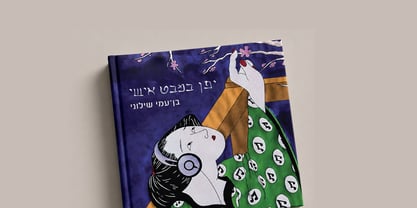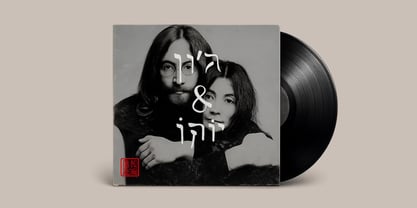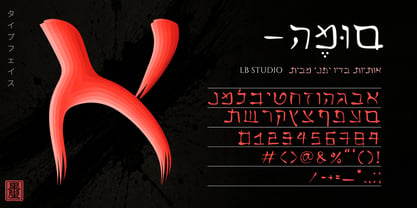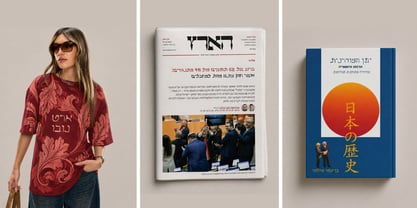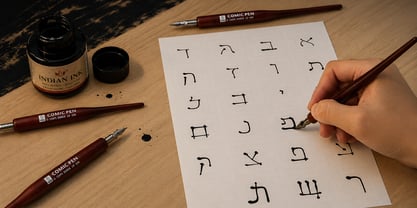
Sume
Soma is a Hebrew typeface inspired by Japanese calligraphy and kanji, developed through a hands-on, expressive process using ink and a calligraphy pen.
The project grew out of two years of studying Japanese at a Japanese Language Center, where I developed a deep appreciation for the rhythm, balance, and emotional quality of traditional kanji writing. In Japanese, sumi (墨) refers to traditional black ink, and sumi-e (墨絵) describes the art of ink painting.
These practices emphasize flow, gesture, and expressive movement—qualities that strongly influenced the design of this typeface.
It is important to note that the name “Soma” is not directly related to ink. Rather, the connection lies in the visual and conceptual inspiration drawn from Japanese calligraphy and ink-based art forms.
Unlike the very few Hebrew typefaces influenced by Japanese aesthetics—often highly precise, technical, and digitally constructed—Soma explores a more organic direction. It embraces the imperfections, movement, and spontaneity of ink, aiming to reflect calligraphy as a living, expressive practice rather than a rigid system.
Each letter was first drawn by hand using ink and a calligraphy pen, then carefully digitized and refined in Illustrator and FontForge. The goal was to preserve the natural flow and energy of the original strokes while building a consistent and functional typographic structure, including balanced spacing and kerning.
Soma is designed for projects that seek a distinctive, artistic voice, and may particularly resonate with those interested in Japanese culture, calligraphy, and East Asian studies—offering a typographic expression of that connection.
LB Studio is an independent type and design studio focused on creating expressive, concept-driven visual work across typography, branding, and digital design. The studio explores the intersection between culture and visual language, drawing inspiration from both traditional and contemporary aesthetics. Its work is defined by a balance between structure and experimentation, combining clear design systems with more intuitive, handcrafted approaches. A central aspect of the studio’s practice is the development of typefaces that challenge conventional design norms. Rather than prioritizing perfect geometry, the studio embraces irregularity, movement, and human imperfection as essential elements of visual expression. By integrating influences from diverse cultural references, including East Asian calligraphy and contemporary design practices, LB Studio aims to create distinctive typographic voices that feel both authentic and relevant.